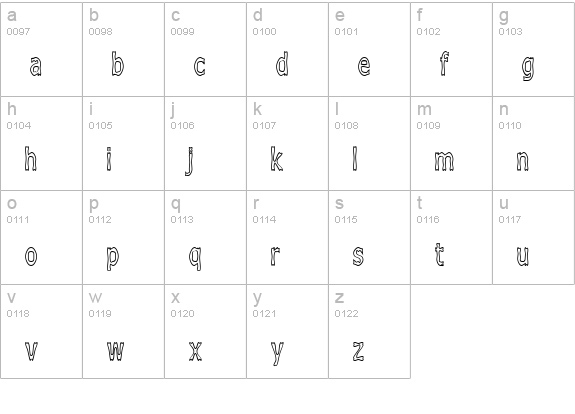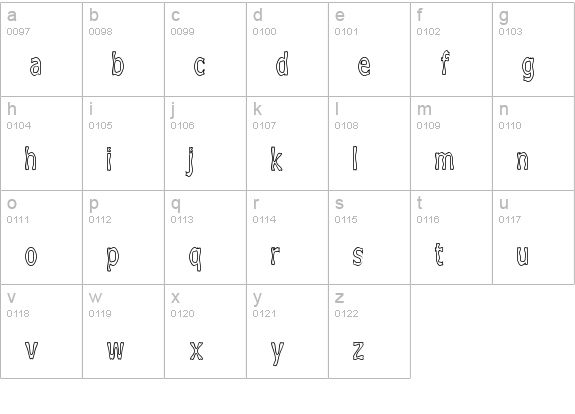
Boneribbon Tall Outline Font Details
Boneribbon Tall Outline font is a whimsical and elegant typeface that is perfect for adding a touch of sophistication to your projects. With its tall and slender letterforms, this font exudes a sense of modernity and style. The delicate outline design of the letters gives it a unique and eye-catching appeal that is sure to capture attention. This font is ideal for a variety of design projects, from branding to invitations to social media graphics. Its versatility makes it a must-have for any designer looking to make a statement with their typography choices. Whether you're working on a wedding invitation or a business card, Boneribbon Tall Outline font will add a touch of class to your design. Best of all, Boneribbon Tall Outline font is available for free download at FontsMarket.com. So you can add this stunning font to your collection without breaking the bank. Don't miss out on this opportunity to elevate your designs with the beauty and elegance of Boneribbon Tall Outline font. Download it today and start creating stunning visuals that will leave a lasting impression.